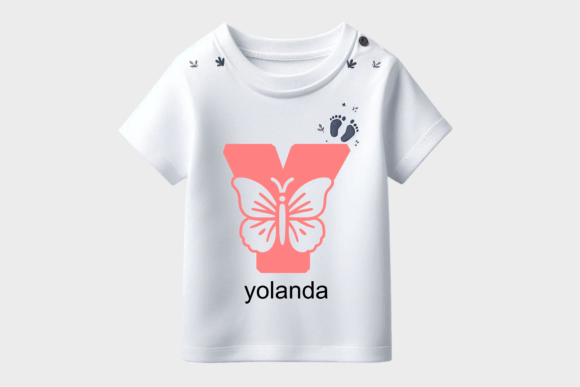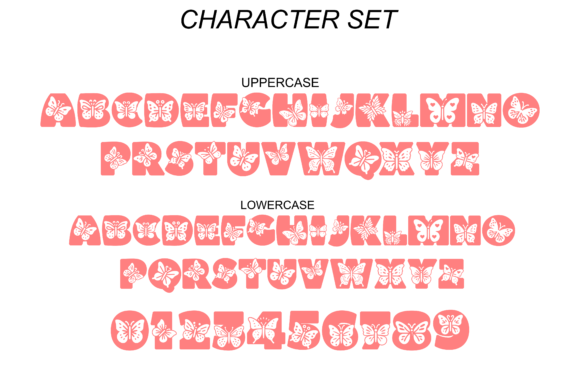
The Magic of Butterfly Font: Elevating Your Design Game
I’ll never forget the time I was working on a project for a client who wanted a font that would make their brand stand out in a crowded market. I had spent hours scouring the internet for the perfect font, but nothing seemed quite right. That was until I stumbled upon the Butterfly Font. Its unique blend of elegance and playfulness immediately caught my eye, and I knew I had found the one. In this article, I’ll share my experience with the Butterfly Font, its features, and how to make the most of it in your designs.
A Personal Review of Butterfly Font
- ✨ Unique and exotic design that adds a touch of whimsy to any project
- 💫 Supports OpenType features, glyphs, and stylistic alternates, giving you plenty of creative options
- 🌈 A wide range of colors and textures that can be used to match your brand’s aesthetic
While the Butterfly Font is incredibly versatile, there are a few things to keep in mind. For example, ⚠️ some of the more intricate details can get lost at very small sizes. Additionally, 🤔 the font can be a bit finicky when it comes to kerning, so be sure to adjust accordingly.
The Butterfly Font was designed by a team of typographers who wanted to create a font that would capture the essence of nature and beauty. Inspired by the intricate patterns of butterfly wings, they crafted a font that is both elegant and playful. The result is a font that is perfect for designers, crafters, and creative hobbyists who want to add a touch of whimsy to their projects.
| Author | Infontree |
| What is the Butterfly Font best used for? | The Butterfly Font is perfect for a wide range of design projects, from branding and advertising to crafting and DIY projects. |
| Is the Butterfly Font suitable for body text? | While the Butterfly Font is highly legible, it’s best used for headings and titles. For body text, a simpler font may be more suitable. |